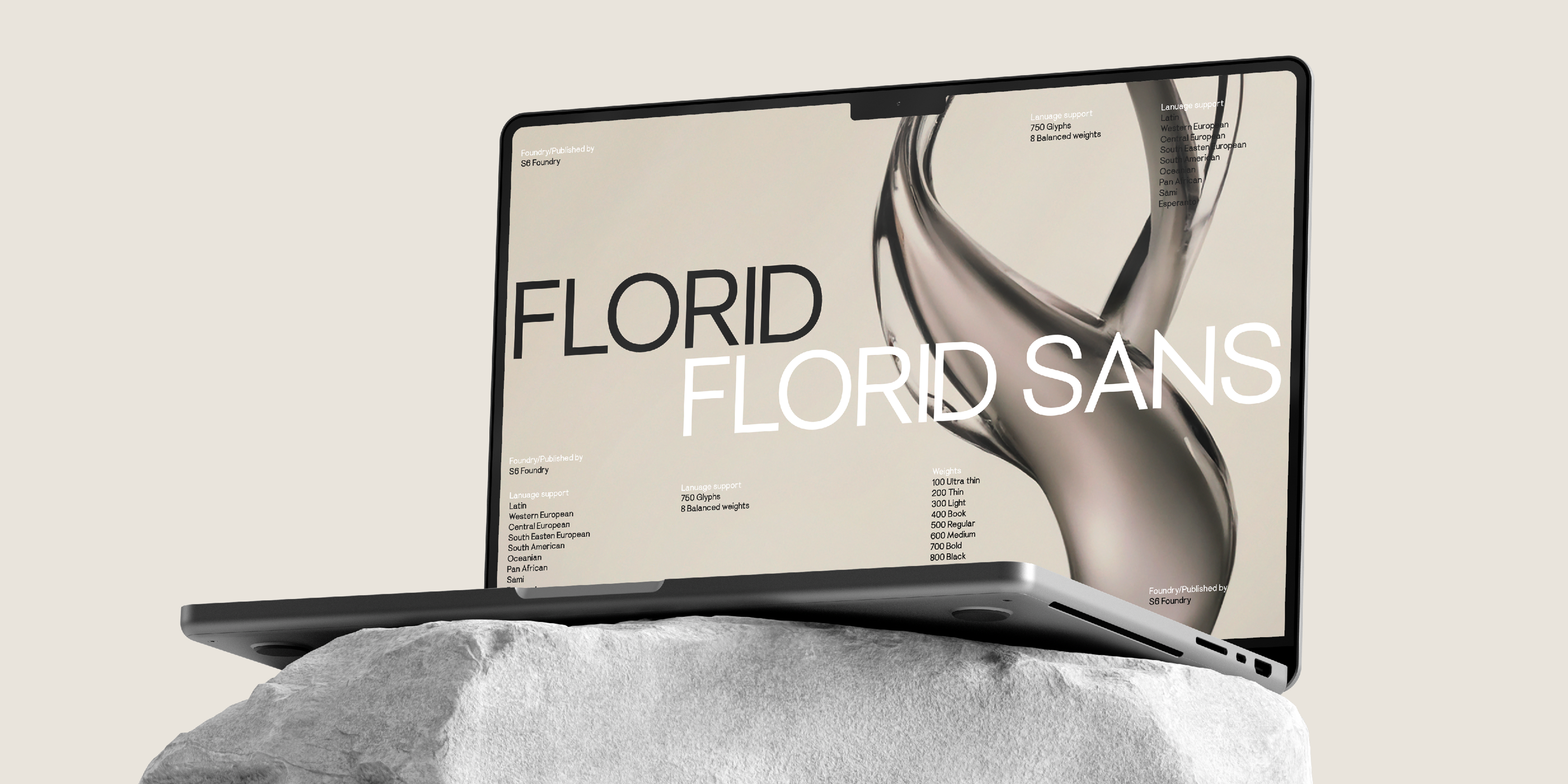
Florid Sans Font Free Download is a clean and contemporary sans-serif typeface designed to enhance readability and style. Its smooth, geometric lines make it ideal for branding, web design, editorial layouts, and other creative projects that require a fresh and modern look.
This font strikes a perfect balance between simplicity and elegance, making it versatile for various design needs. Whether used for headlines, body text, or user interfaces, Florid Sans Font Free Download ensures your content stands out with clarity and sophistication.
Bring your designs to life with the refined and stylish Florid Sans Font Free Download. If you want a font that combines modernity with usability, Florid Sans is the perfect choice.